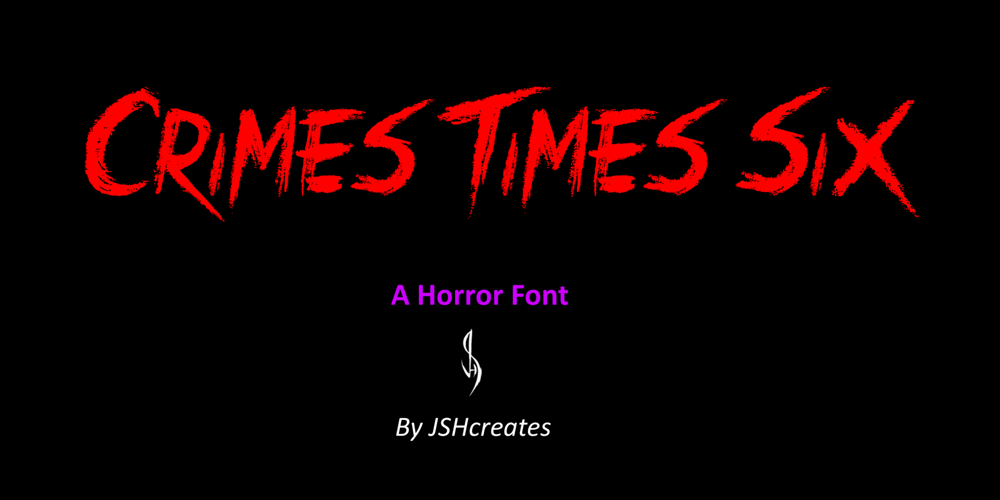
Crimes Times Six Font Family was designed by Jonathan Harris and published by JSH creates. Crimes Times Six contains 1 styles and family package options. Crimes Times Six is a cool horror font, originally created with a chalk stick back in 2012, by Jonathan S Harris. The typeface design works very well in video games, movies and broadcasting, but also looks great on clothing and posters.